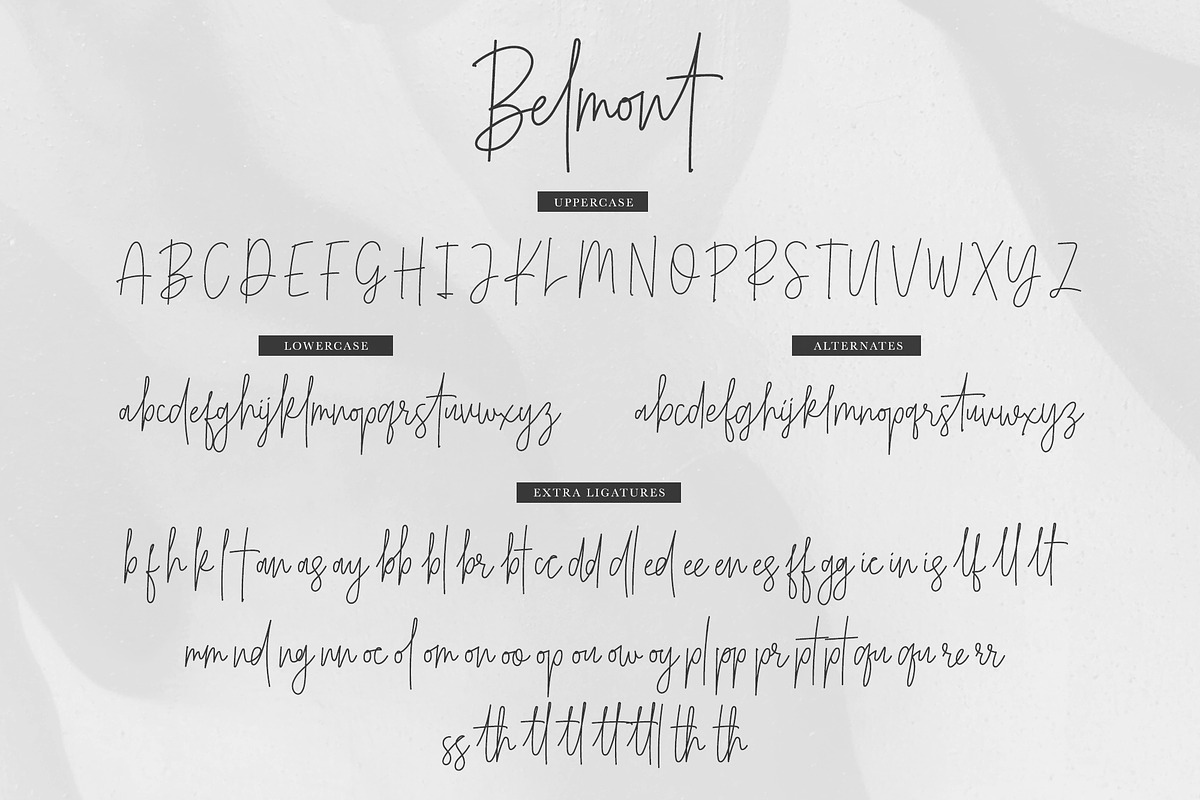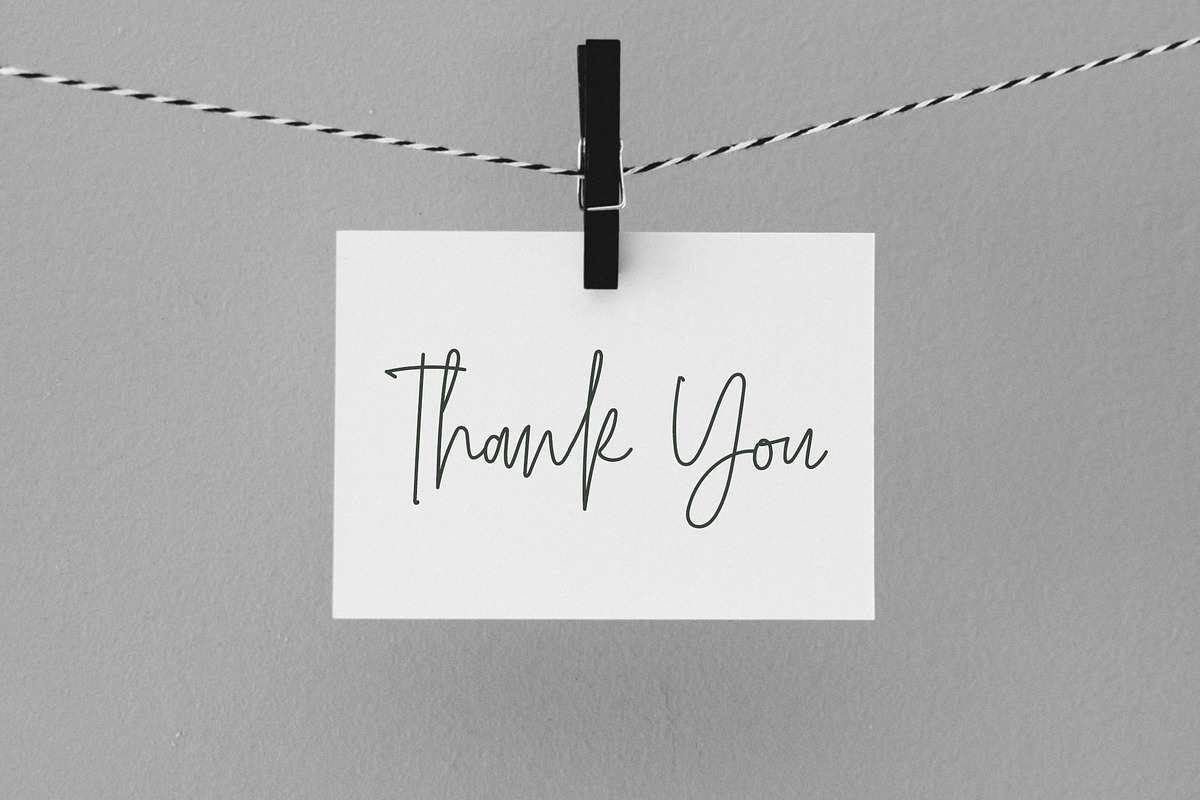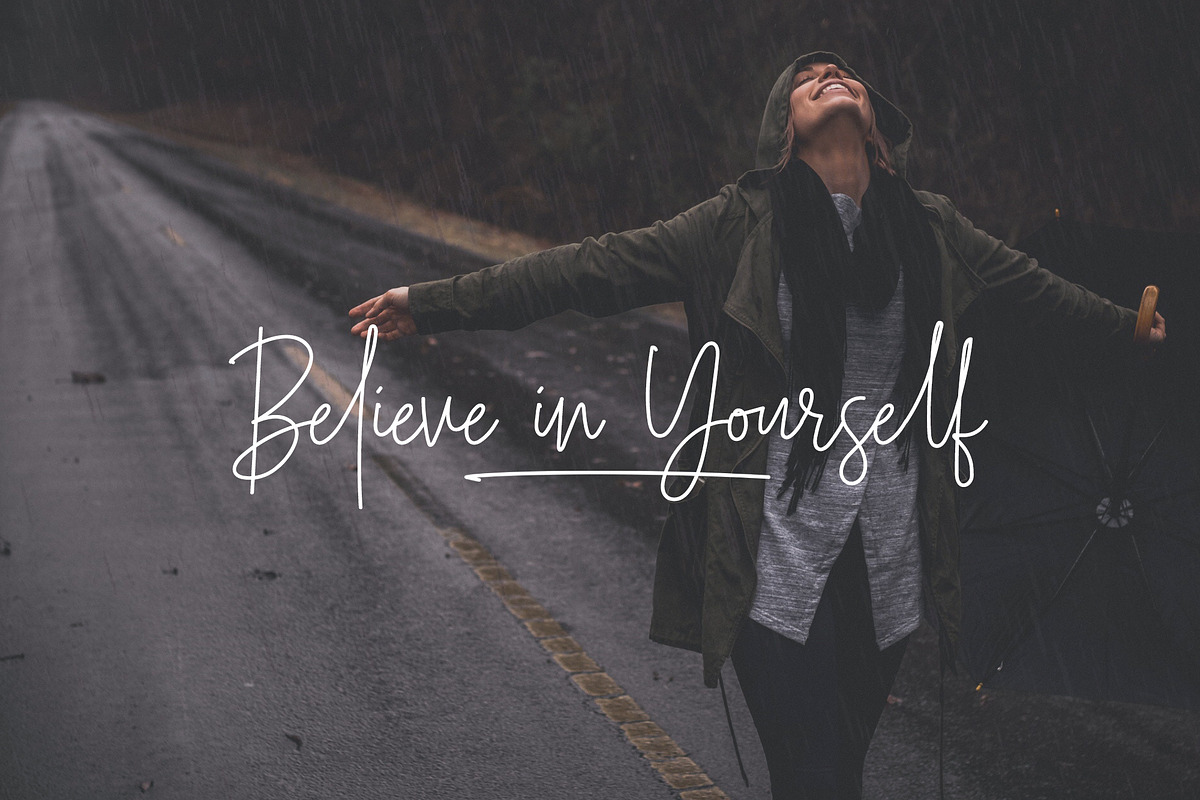
Belmont Script - 54 Ligatures!
Looking for an elegant font to class up the place? Maybe you have some wedding invitations that you've been putting off for a month, because you haven't found the perfect fit. Maybe you just want to have another awesome font in your design arsenal that makes designing a breeze. Either way, I have just the thing for you!
🙌🏼 Introducing the Belmont Script font family 🙌🏼
This font family works great for fashion, weddings and other high end applications. Belmont features over 54 ligatures and a full set of alternates which keeps the text very natural looking and gives you tons of variety to work with. Try this font out for signatures, mottos, instagram posts, web banners and much more.
Regular, Bold, Italic and Bold Italic are all included. Each version has an alternates file as well, containing secondary lowercase characters. To top it all off, I've included 13 swashes in a font file as well, so you can add some slick underlines to your graphics.
Massive Language Support
French, Spanish, English, Catalan, Galician, Basque, Portuguese, Italian, Albanian, Afrikaans, Dutch, German, Danish, Swedish, Norwegian, Finnish, Faroese, Icelandic, Irish and Scottish, Croatian, Czech, Hungarian, Polish, Romansh, Slovak and Slovenian